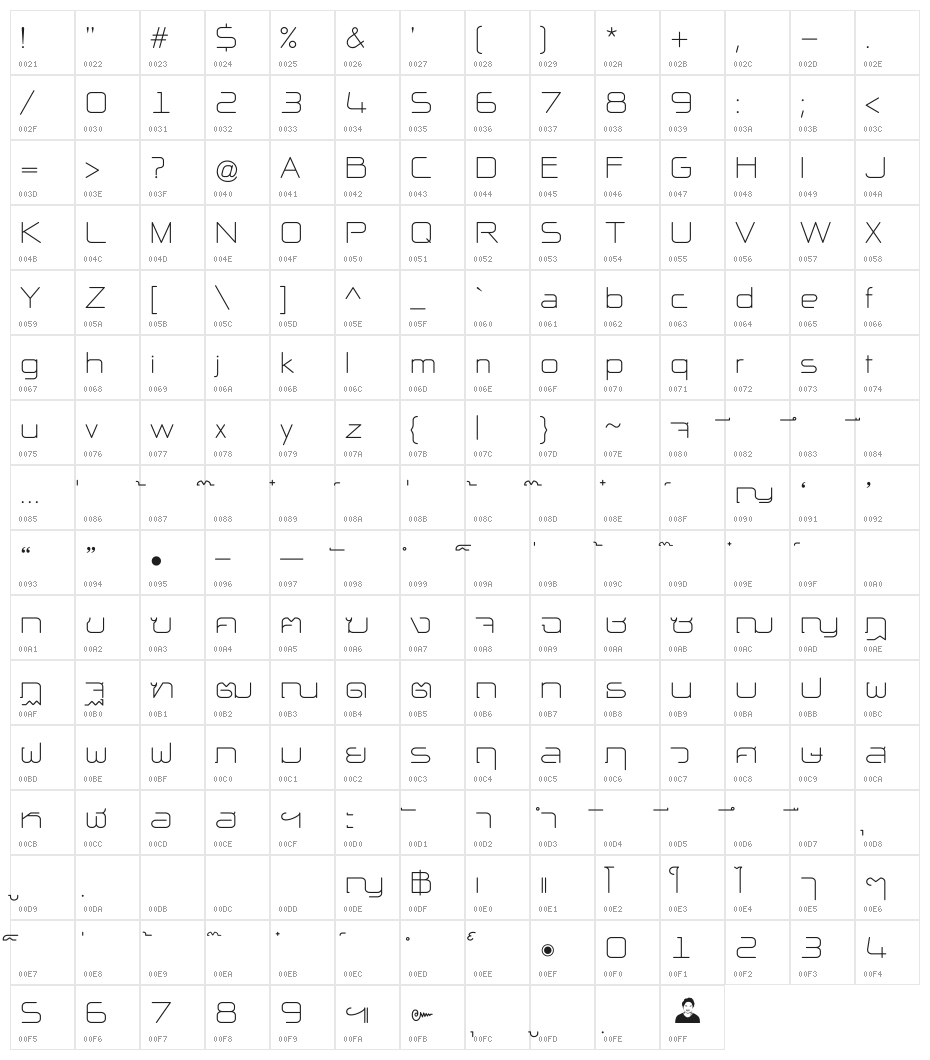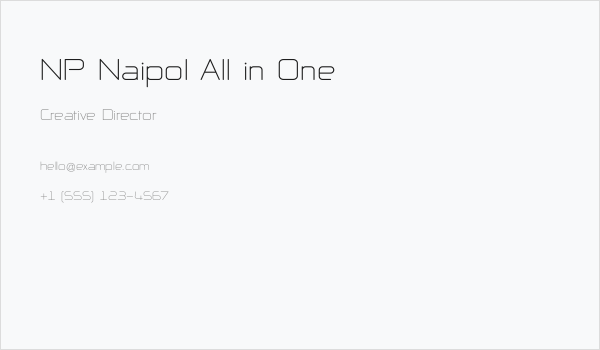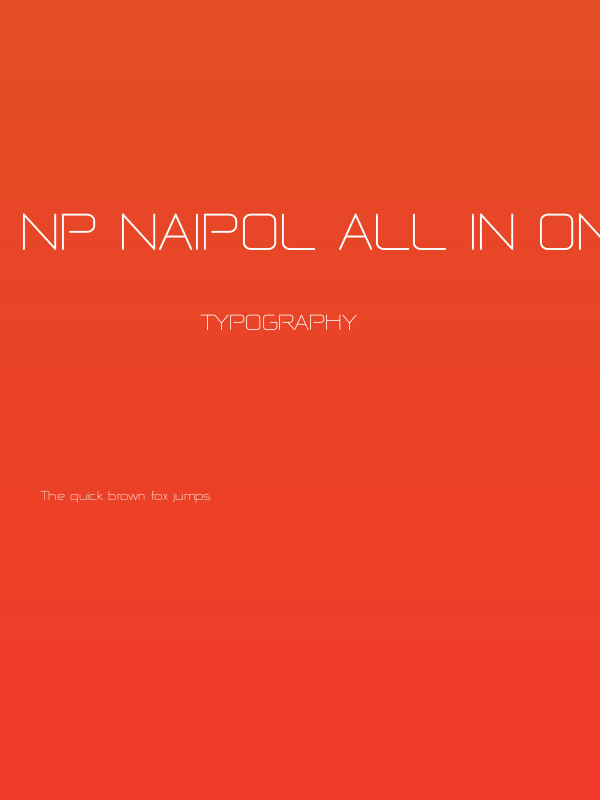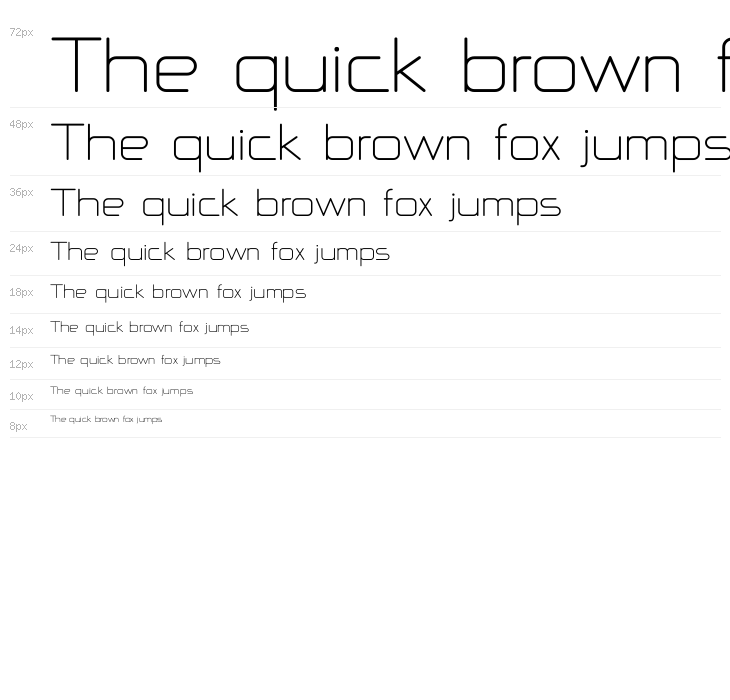
NP Naipol All in One Font
NP Naipol All in One Description
This font features a sleek, modern design with a geometric and minimalist aesthetic. The characters are constructed with clean, straight lines and rounded corners, giving it a futuristic and technical feel. The uppercase and lowercase letters maintain a consistent height, contributing to a uniform appearance. The numerals and special characters are designed to match the overall style, ensuring cohesion across all elements. The font's simplicity and clarity make it highly legible, even at smaller sizes, while its unique style adds a touch of sophistication to any project.
| Use Case | Logos, Headlines, Digital Interfaces |
| Proposed Projects | Ideal for technology branding, modern web design, and innovative product packaging. |